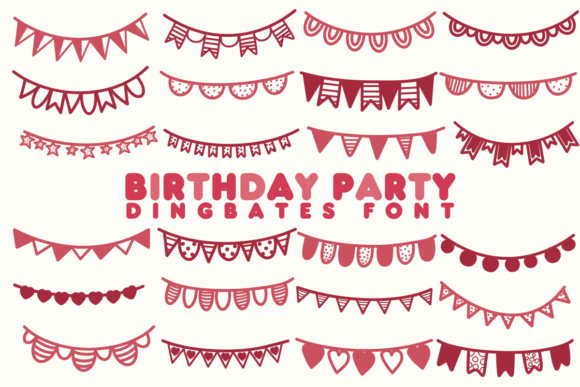
Get Ready to Celebrate with the Birthday Party Font
Do you remember the excitement of planning your birthday party as a kid? The endless hours spent thinking about the perfect theme, decorations, and cake design? As a designer, you want to capture that same magic in your birthday invitations and decorations. That’s where the Birthday Party Font comes in – a fun and easy-to-read dingbat font that features cute birthday party garlands.
This versatile font is perfect for adding a touch of whimsy and joy to your birthday designs. With its playful garlands and balloons, you can create invitations, posters, and decorations that will make any birthday party stand out. As a designer, you’ll appreciate the ease of use and flexibility of the Birthday Party Font, making it a valuable addition to your design toolkit.
- Unique Characteristics: Hand-drawn design with bold, playful lines and vibrant colors
Birthday Party Font Review
Overall, I think the Birthday Party Font has its moments, but it’s not without its flaws. Here are some of my thoughts on what works well and what doesn’t.
- The font’s playful and celebratory vibe is perfect for, you guessed it, birthday parties and other festive events.
- The bold and colorful design elements make it easy to stand out on social media, party invitations, and other promotional materials.
- The font’s unique and quirky feel adds a touch of whimsy and fun to any design project.
- The font can be a bit too over-the-top and might be distracting in certain contexts, such as formal events or professional communications.
- The bold design elements can make the font difficult to read in small sizes or at a distance.
- The font’s limited character set and lack of international support might be a problem for designers working on global projects.
While the Birthday Party Font is a fun and creative choice for certain projects, it’s not a versatile font that can be used in a wide range of contexts. With some careful consideration and design adjustments, it can be a great addition to your font collection.
Tips: Use the Birthday Party Font to create eye-catching invitations, party banners, and social media posts.
Tips: Use the Birthday Party Font to create custom party decorations, invitations, and party favors.
Tips: Use the Birthday Party Font to create engaging party invitations, thank-you cards, and party schedules.
The Birthday Party Font is perfect for:
- Party banners and signs
- Social media posts and announcements
- Party favors and gift tags